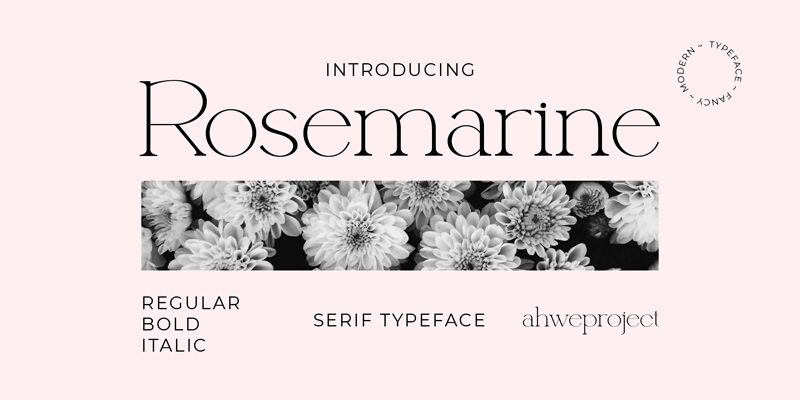
Rosemarine font by Ahwe Project is an elegant, classic, and refined serif design. This sophisticated typeface combines a modern twist on traditional style elements to create a unique visual experience. It offers a sleek and polished look that can enhance any written content with its understated elegance.
This free serif font is ideal for use in branding projects, packaging, magazines, book covers, invitations, posters, editorials, logotypes, fashion designs, headings within websites or applications as well as stationery projects like letterheads or business cards.